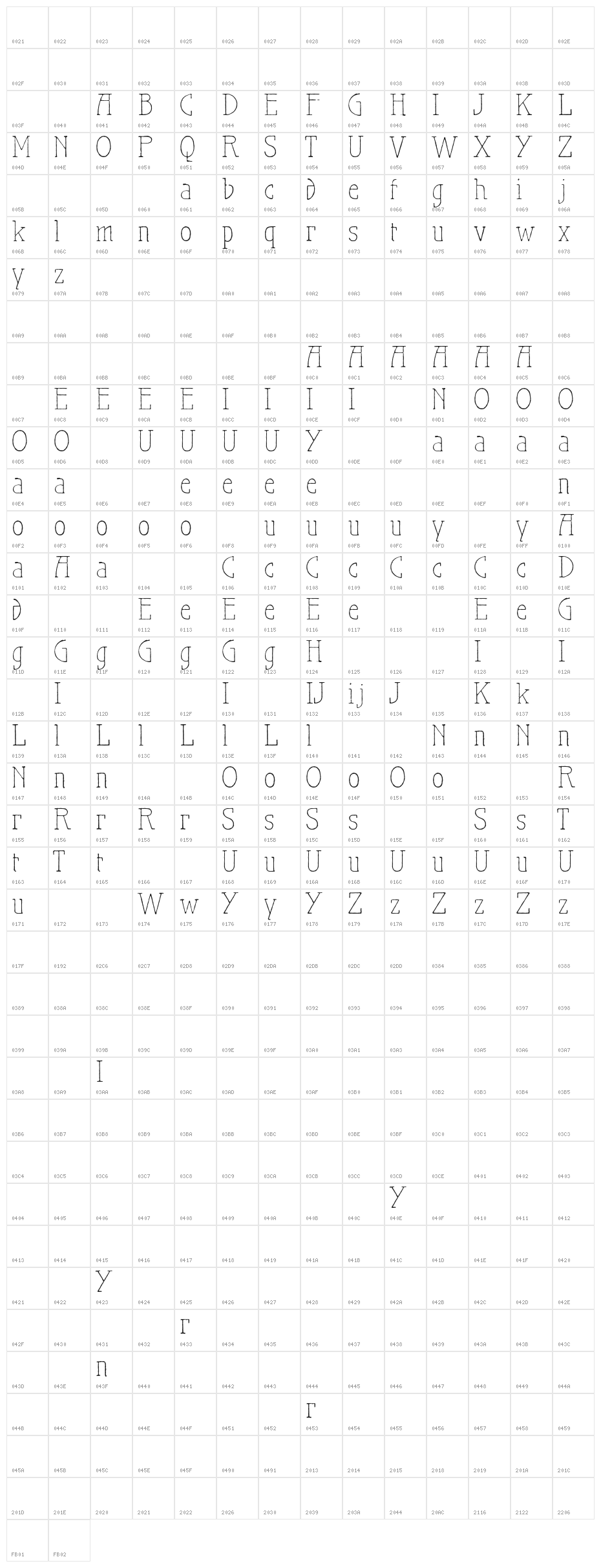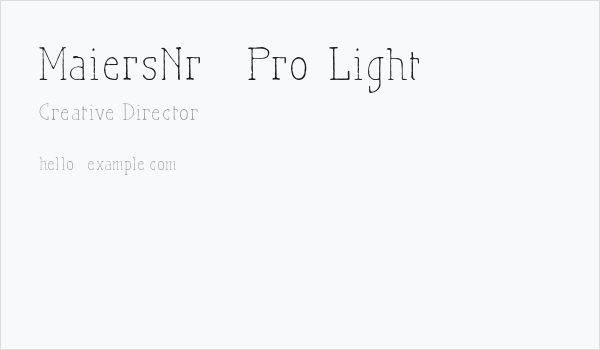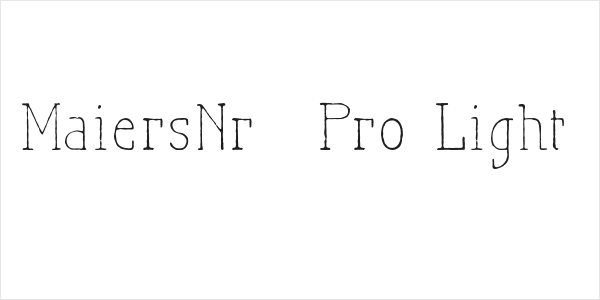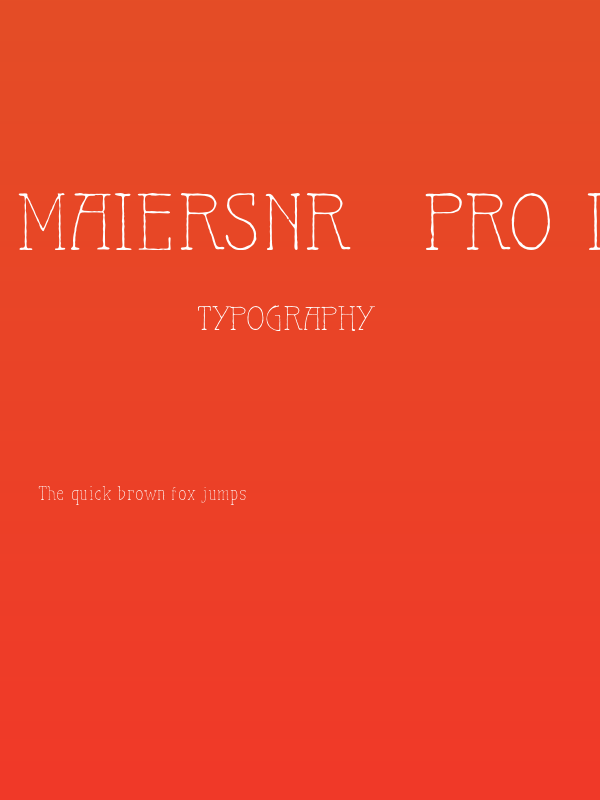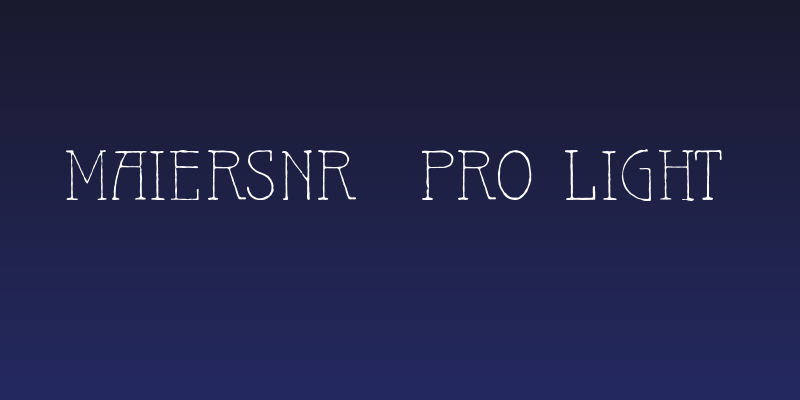
MaiersNr.21Pro-Light Font
MaiersNr.21Pro-Light Description
This font exhibits a unique and artistic style, characterized by its thin, elongated strokes and slightly irregular forms. The uppercase letters have a distinct, handcrafted appearance, with subtle variations in line thickness that add to its charm. The lowercase letters maintain a consistent style, with some characters featuring open loops and others with closed forms, creating an interesting visual rhythm. The numerals are designed to match the overall aesthetic, with a similar balance of thin lines and artistic flair. The special characters are crafted with the same attention to detail, ensuring a cohesive look across all glyphs.
| Overall Style | Artistic |
| Proposed Projects | Ideal for artistic projects, invitations, branding, and any design that requires a touch of elegance and uniqueness. |